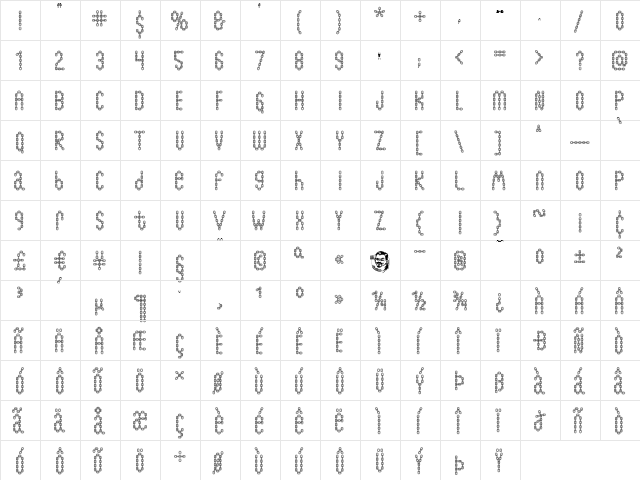
ChainFontOpen Regular Font Preview
ChainFontOpen Regular
ChainFontOpen Regular Font Details
Design Context for ChainFontOpen Typeface
ChainFontOpen is a composed and adaptable typeface that performs quietly and consistently across a wide range of design contexts.